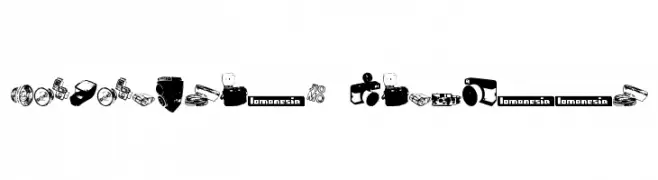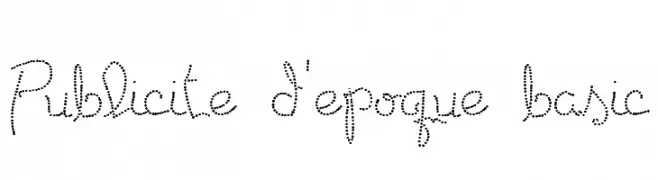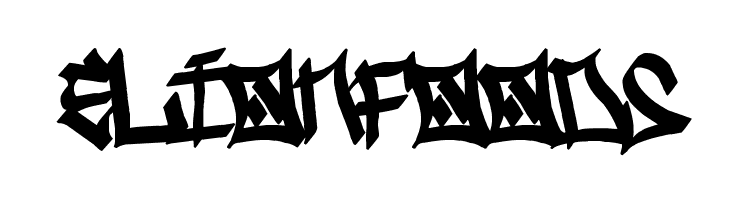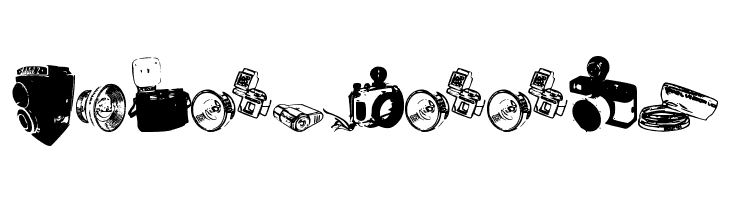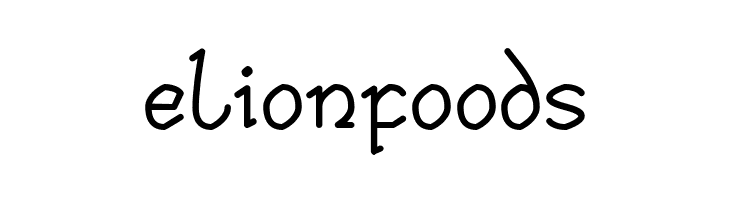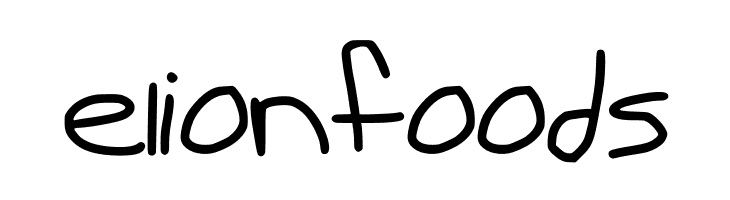
A dynamic and expressive script font with elegant, sweeping strokes.
A photography-themed dingbat font with camera and accessory illustrations.
A playful, handwritten font with smooth curves and a whimsical style.
A Morse code-inspired font with dots and dashes forming each character.